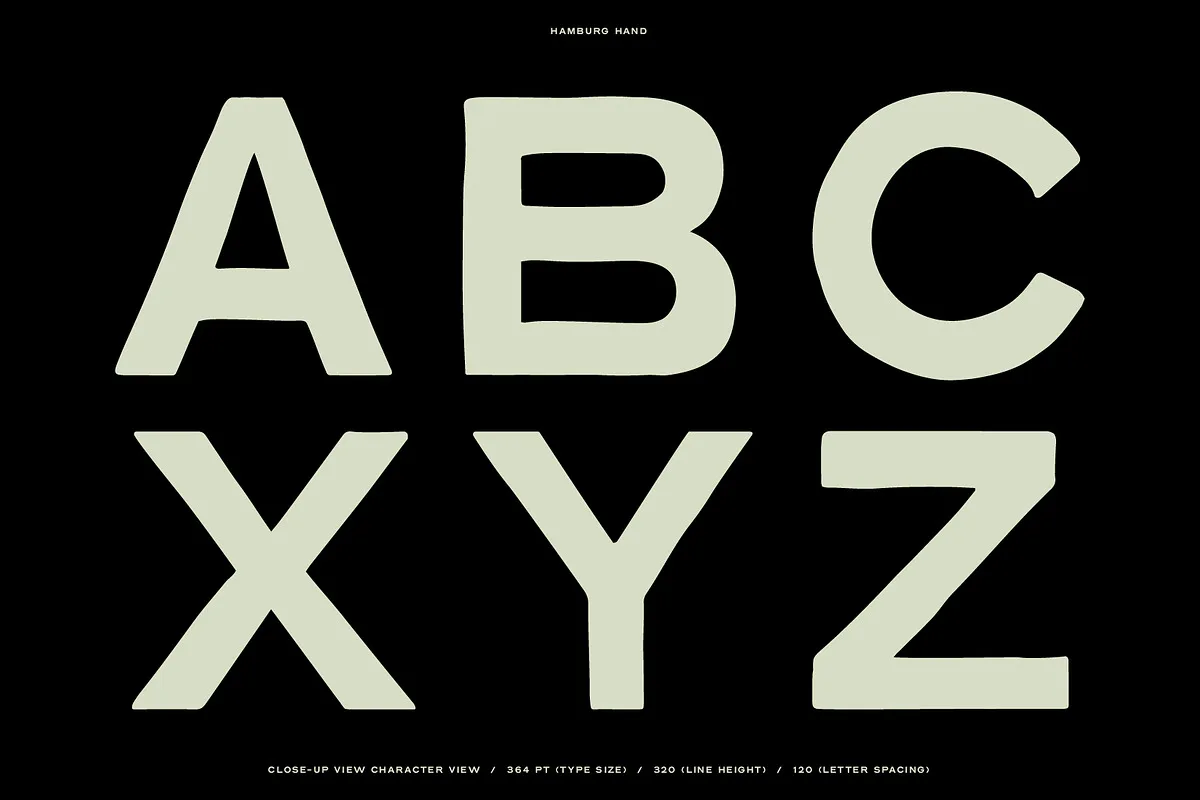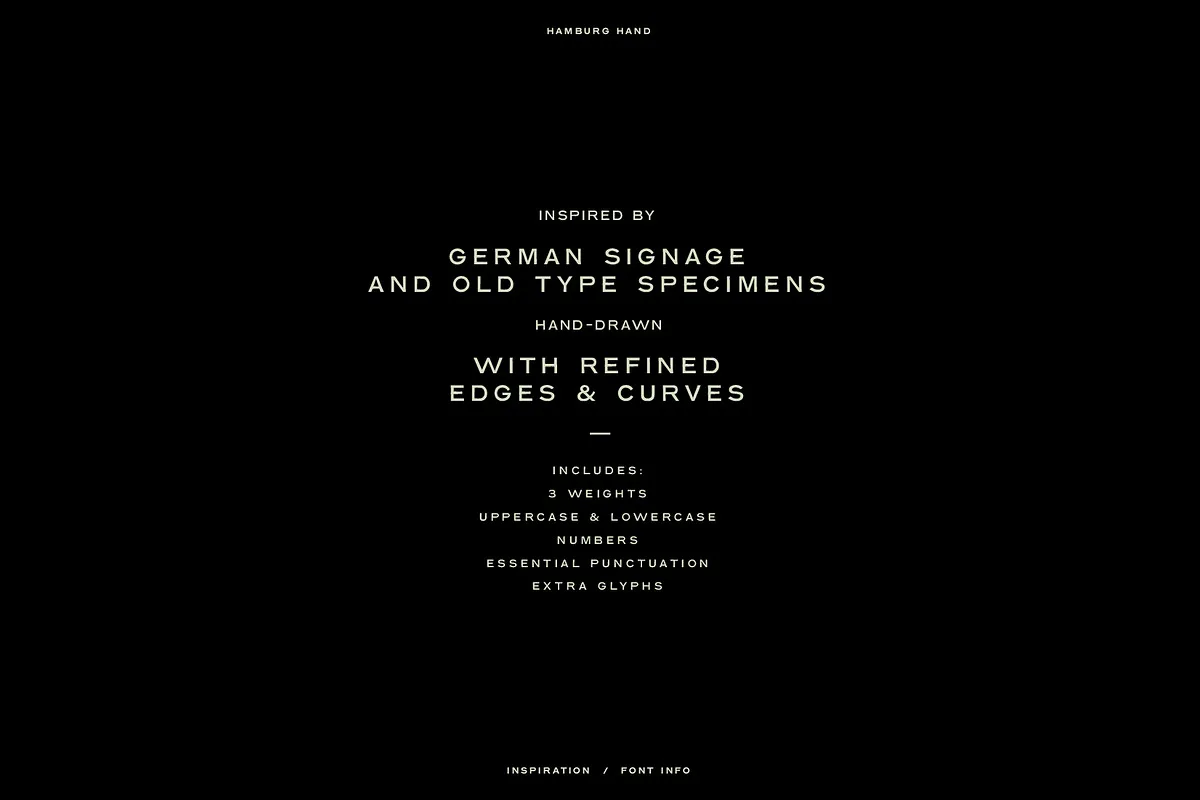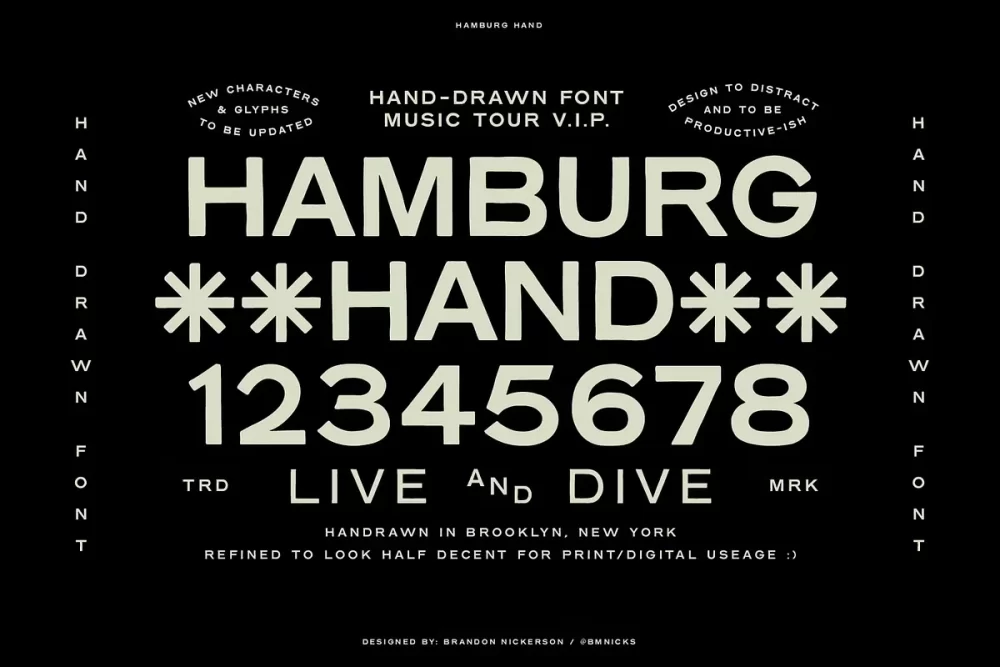
Hamburg Hand is a hand-drawn sans serif font inspired by German signage and various old type specimens. It is really perfect for you who needs a typeface for especially logotype, apparel, invitation, branding, packaging, advertising etc.